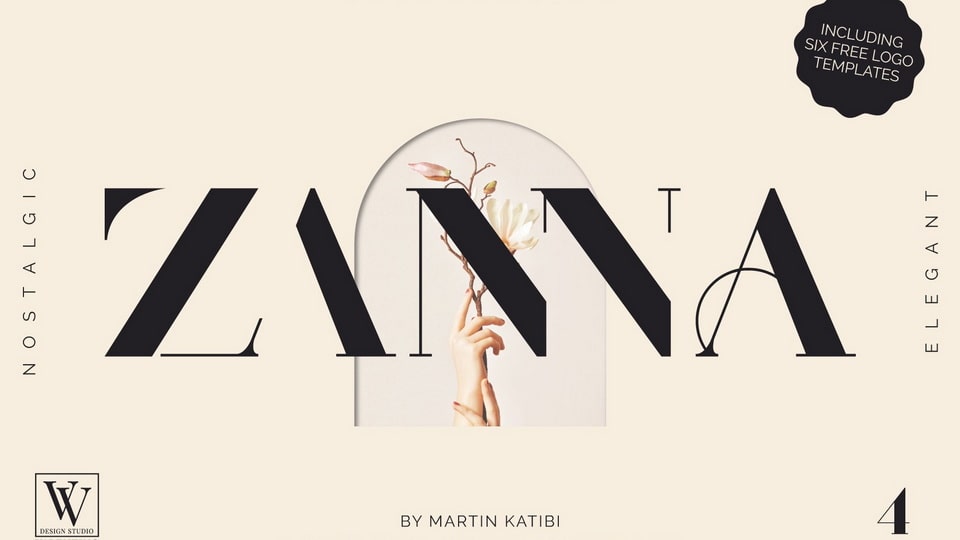
Download Zanna font, a modern typeface with lots of style and elegance. The Zanna typeface was inspired by the high contrast Didot look, which has been synonymous with fashion for decades.